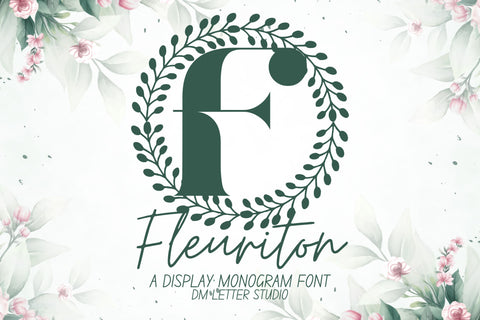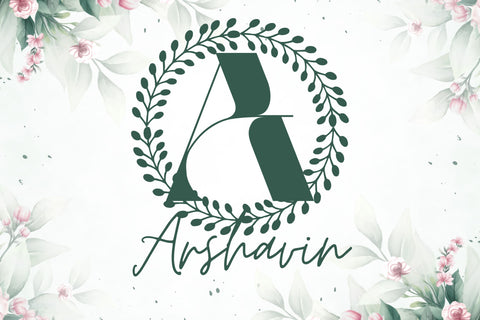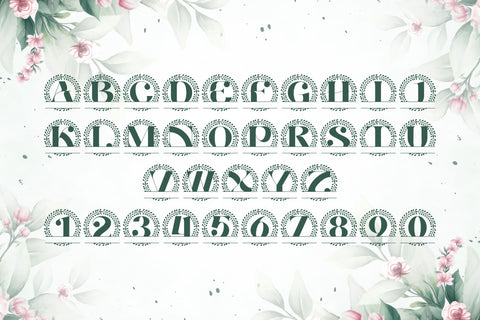
Fleuriton Monogram Font
Meet Fleuriton, the Monogram Font
Fleuriton Monogram Font turns simple initials into elegant, garden-inspired emblems. Strokes feel smooth and balanced, while subtle floral cues add a soft, premium touch without harming clarity. Open counters keep tiny tags and foil seals readable, so your pieces look polished at every size. Use it for wedding suites, boutique logos, keepsake gifts, and upscale packaging. In addition, Fleuriton pairs beautifully with refined serifs or a quiet humanist sans, which helps layouts feel cohesive with minimal effort.
Where this monogram font shines
Set single, double, or triple initials for logos, seals, menus, and place cards. Then frame them with laurel rings, oval borders, or fine rules to echo the botanical rhythm. Since proportions favor symmetry and calm spacing, centered compositions come together in minutes. As a result, your thumbnails stand out on crowded marketplaces and your listings look consistent from invitations to signage. Fleuriton also scales smoothly from jewelry cards to entry displays, making it ideal for event décor and retail packaging.
Design tips for Fleuriton Monogram
Keep initials large and let white space breathe. Pair the headline monogram with a soft serif for body text or a clean sans for labels. Add micro shadows, a fine inner stroke, or a delicate frame for depth. Because the structure is airy, textured papers, pearlescent stocks, and metallic accents raise perceived value. However, keep copy short so the monogram remains the hero—especially on favors, tags, and wax seals.
Select stylistic alternates for key letters
Curves tuned for foil, letterpress, engraving, laser, and clean vinyl cutting
Why creators choose Fleuriton
You want romance and readability in one mark. Fleuriton delivers both. It grabs attention in thumbnails, speeds layout, and keeps your brand voice cohesive across weddings, gifts, and boutique packaging.